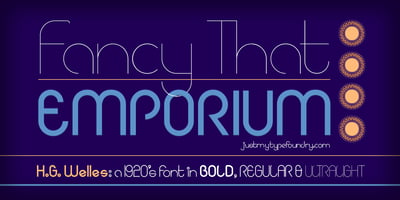
HGWelles Font Family was designed by Randy Harris and published by Just My Type. HGWelles contains 3 styles and family package options. Designed for a privately-published luxury edition of The Time Machine, HGWelles Ultralight, Regular and Bold are now being made available to the public. This is the Welles of the early 20th century, seeing many of his predictions coming true and anticipating the shape of things yet to come.